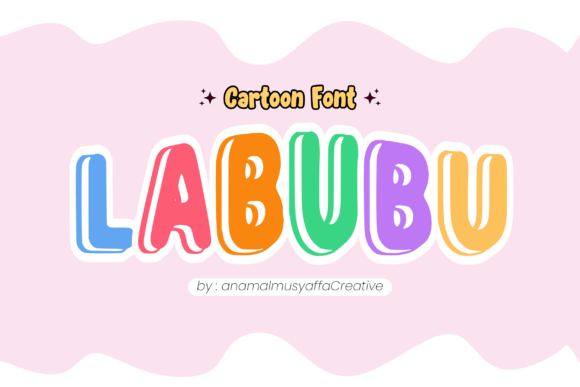
Labubu Font
“Labubu typeface” is a contemporary font designed with a delightful nugget of whimsy. Every character exudes charm and playfulness, making it a breeze to incorporate into your projects.
Discover its seamless fit on sublimation designs for items like t-shirts, mugs, tote bags, and more. Let Labubu bring your animations, comic titles, or creative visions to life. Give your imagination the reins and explore the charm of the Labubu typeface.